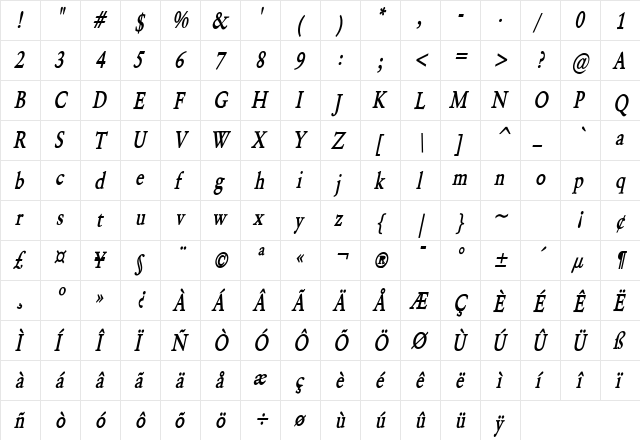
Garrick Thin Bold Italic
Design Context for Garrick Thin Typeface
Garrick Thin is a composed and adaptable typeface that performs quietly and consistently across a wide range of design contexts. The dynamic lean of this cut emphasises speed and emphasis in any layout. The heavy weight commands attention and anchors typographic hierarchies.
Pro Tip: Try Garrick Thin for annotation and caption copy alongside an upright companion — the contrast in angle creates a dynamic but ordered typographic system.